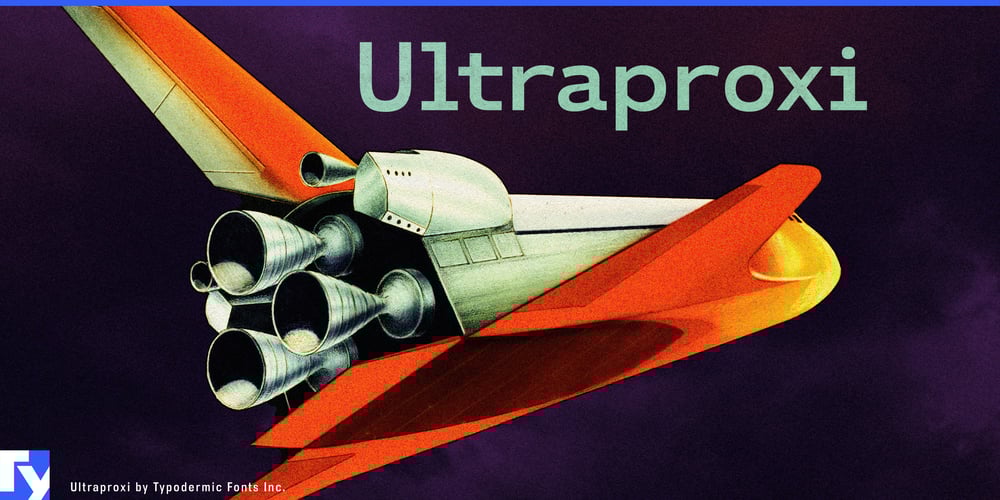
Ultraproxi Font Family was designed by Ray Larabie and published by Typodermic. Ultraproxi contains 12 styles and family package options. Ultraproxi: a typeface that hums with the electric precision of a bygone technological era. Like the rhythmic whir of the IBM 1403 chain printer that inspired it, this font family resonates with a harmonious blend of nostalgia and cutting-edge design.At its core, Ultraproxi captures the essence of mid-20th century high-speed printing. Each character stands as a testament to an age when the staccato rhythm of metal slugs striking paper was the heartbeat of information processing. The typeface’s clean lines and measured spacing echo the metronomic precision of those early computer printers, where each letter was a triumph of mechanical engineering. But Ultraproxi is no mere facsimile of the past. Its semi-monospaced design strikes a delicate balance between technical austerity and modern flexibility. Like a virtuoso musician who knows when to adhere to the score and when to improvise, Ultraproxi offers designers the structure of a monospaced font with the freedom to break from rigid conformity when the design demands it.The six weights of Ultraproxi, each with its italic counterpart, provide a full symphony of typographic possibilities. From the whisper-quiet pianissimo of its lightest weight to the thunderous fortissimo of its boldest cut, this typeface allows designers to modulate their visual voice with unprecedented control. Ultraproxi speaks the language of data with fluency, making it the ideal choice for complex visualizations and user interfaces. Yet, it’s equally at home in body text, headlines, or anywhere that demands a perfect fusion of readability and technical aesthetics. It’s a typeface that doesn’t just display information—it elevates it.The linguistic versatility of Ultraproxi is as impressive as its design flexibility. Supporting an vast array of writing systems—from Latin to Cyrillic, Greek to Vietnamese—this typeface ensures your message resonates across cultures with the same technical precision, regardless of the language. Are you ready to infuse your designs with the spirit of technological innovation? Ultraproxi awaits, its characters poised to march across your screen with the same relentless efficiency as the chain printers that inspired it. Getit today and let your typography sing with the harmony of form and function.With Ultraproxi, you’re not just choosing a font—you’re tapping into the pulse of an era when each printed character represented a leap forward in human progress. In a world of endless digital noise, Ultraproxi stands as a beacon of clarity, precision, and timeless technological cool.